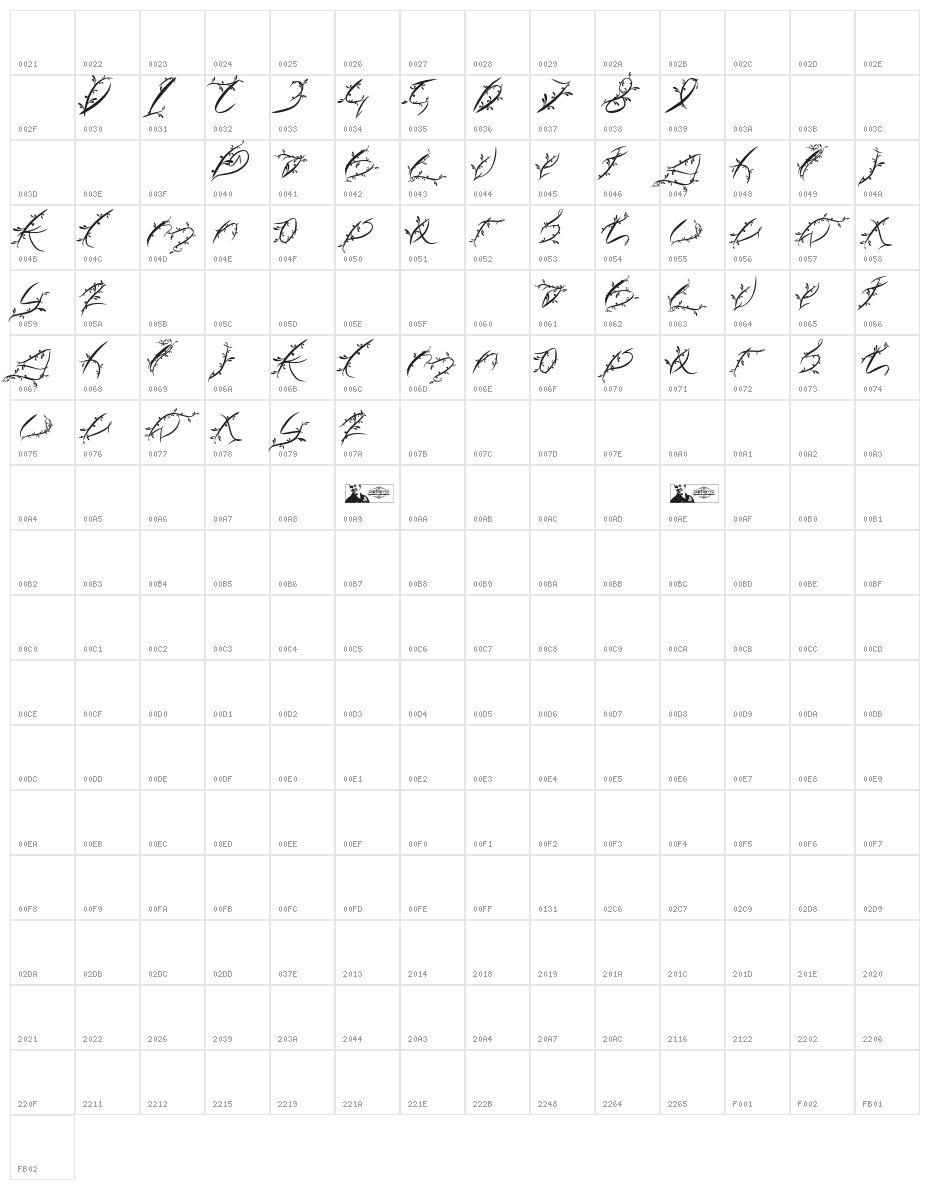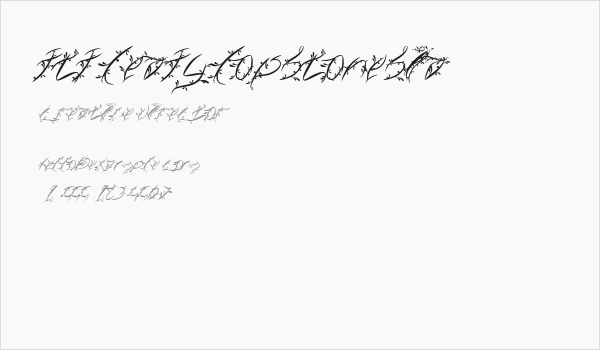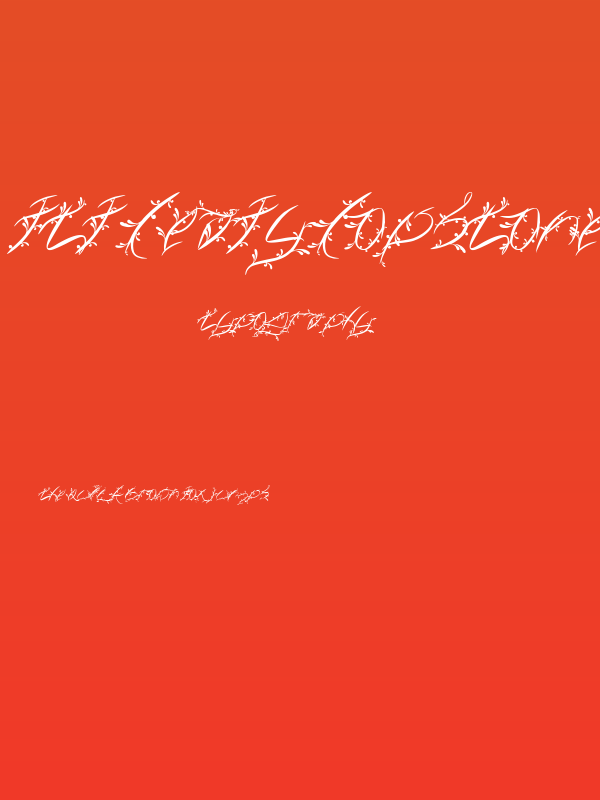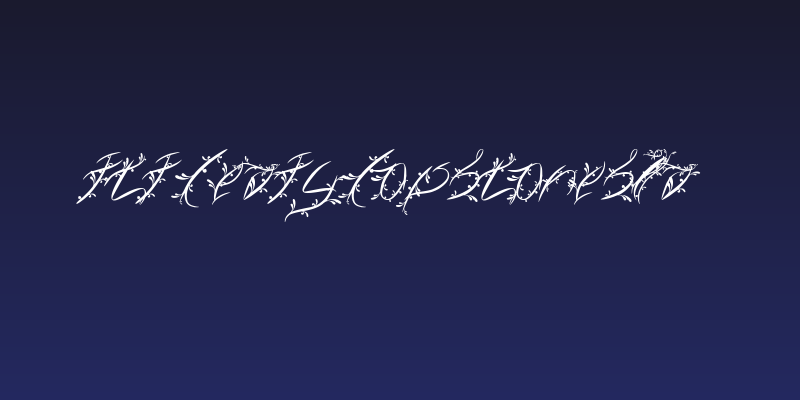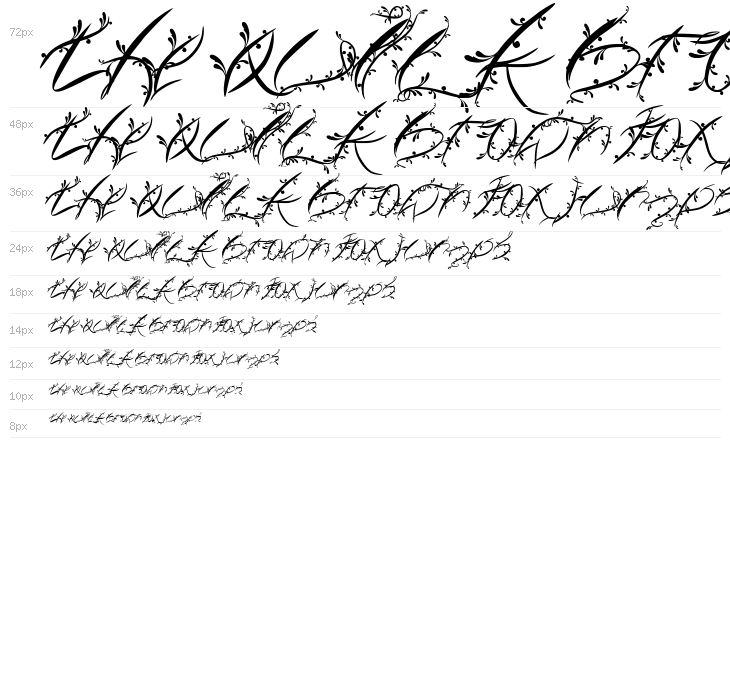
FTF Leafy Lopstonesia Font
FTF Leafy Lopstonesia Description
This font features an intricate and decorative design, with each character adorned with leaf-like embellishments that create a natural, organic feel. The letters are connected with vine-like extensions, giving the font a whimsical and artistic appearance. The strokes are varied, with some parts being thicker to emphasize the leafy details, while others are thinner to maintain elegance and readability. This font is ideal for projects that require a touch of nature or fantasy, such as invitations, greeting cards, or themed branding.
| Proposed Projects | Ideal for nature-themed invitations, fantasy book covers, artistic branding, and decorative signage. |